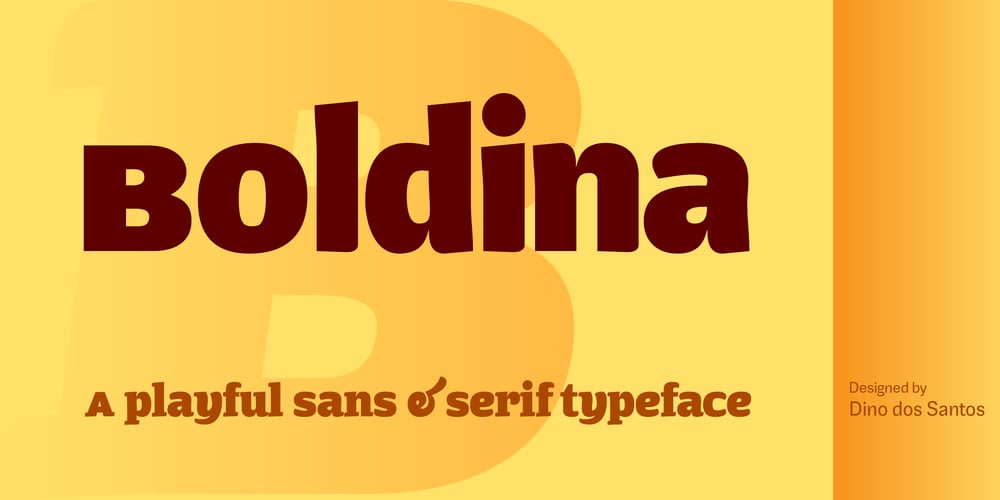
Boldina
Boldina font
Boldina Font Family was designed by Dino dos Santos and published by Monotype. Boldina contains 18 styles and family package options. Boldina consists of 18 fonts with a lot of personality. This is a font to be mixed. That’s its purpose and that’s why it’s designed as one single weight in so many different styles. My intent was to give designers a chance to use the same typeface in many different ways, putting together sans and serif, lots of italics and even Greek, Cyrillic and CE characters. The Ligatures and the Script versions give a more poetic and more accurate feeling to the text.